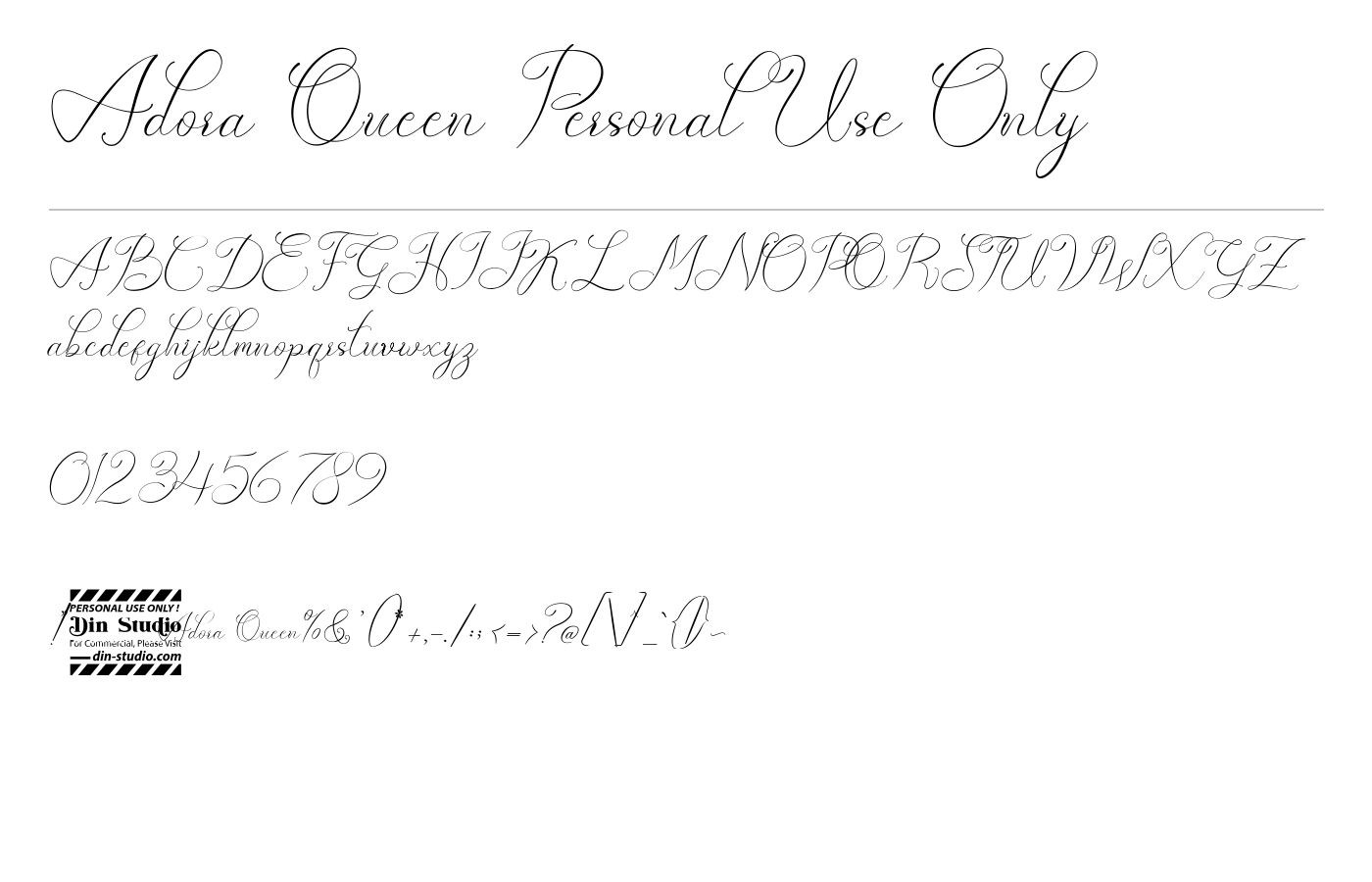
Adora Queen Personal Use Only is an elegant script font that features delicate, flowing lines with a light weight and high contrast in stroke thickness, giving it a graceful and refined appearance. Its tall, slender letterforms with intricate swashes and smooth curves make it perfect for luxury branding, wedding invitations, and sophisticated editorial projects where a touch of classic beauty and femininity is desired. This font works best in large sizes for headlines or decorative use, adding a stylish, romantic flair to any design.
Adora Queen Personal Use Only Font
About Adora Queen Personal Use Only Font